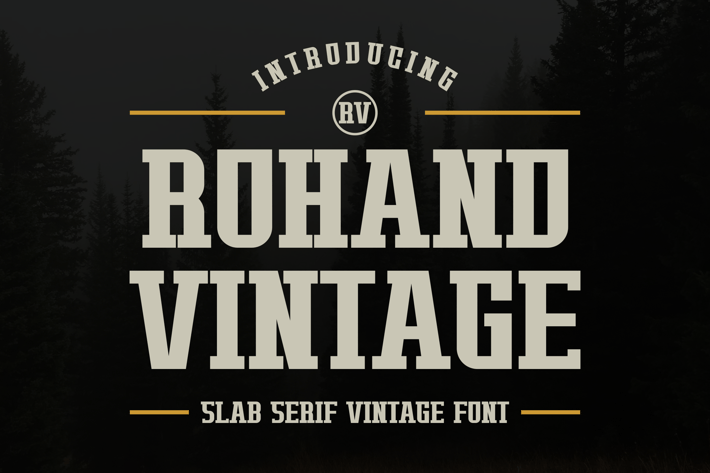
Rohand Vintage - Slab Serif Vintage Font
Rohand Vintage - Slab Serif Vintage Font is a unique font. Can make it easier to convey the message in your design. Use for awesome display, labeling, clothing, movie sceen, poster, movie title, gigs, album covers, logos, and much more.
Uppercase & lowercase letters
Numbers & punctuation